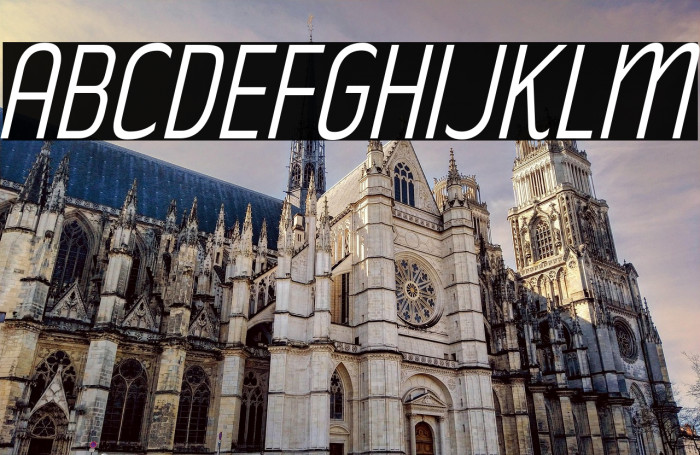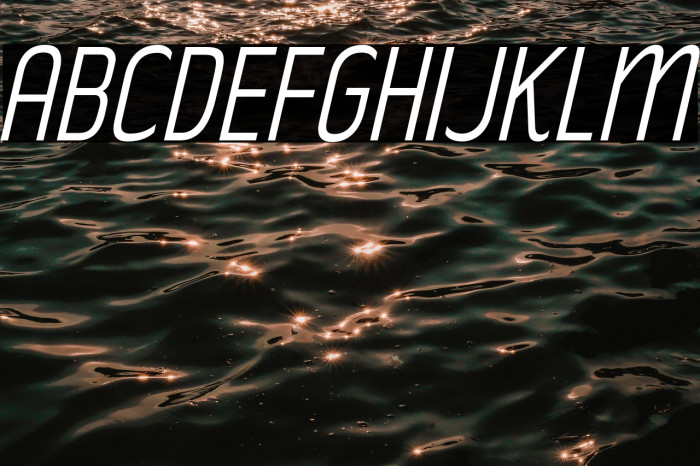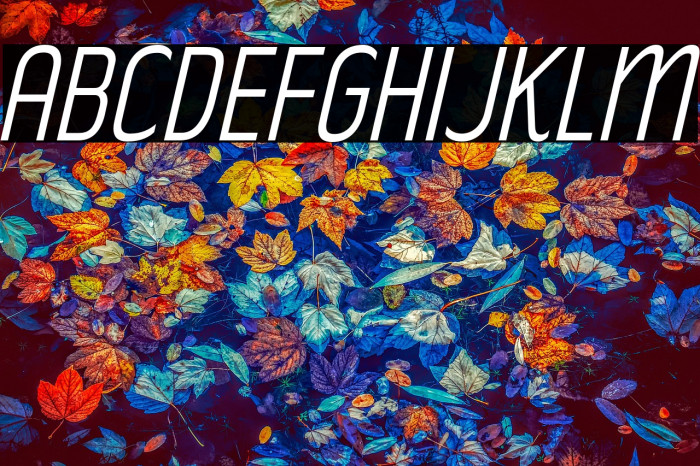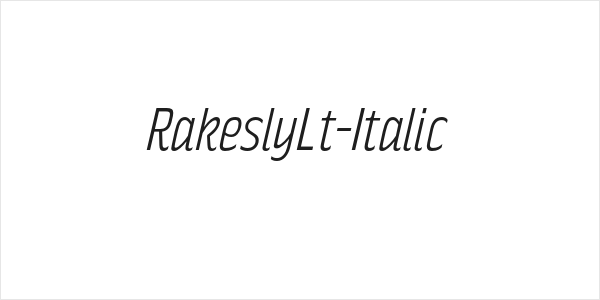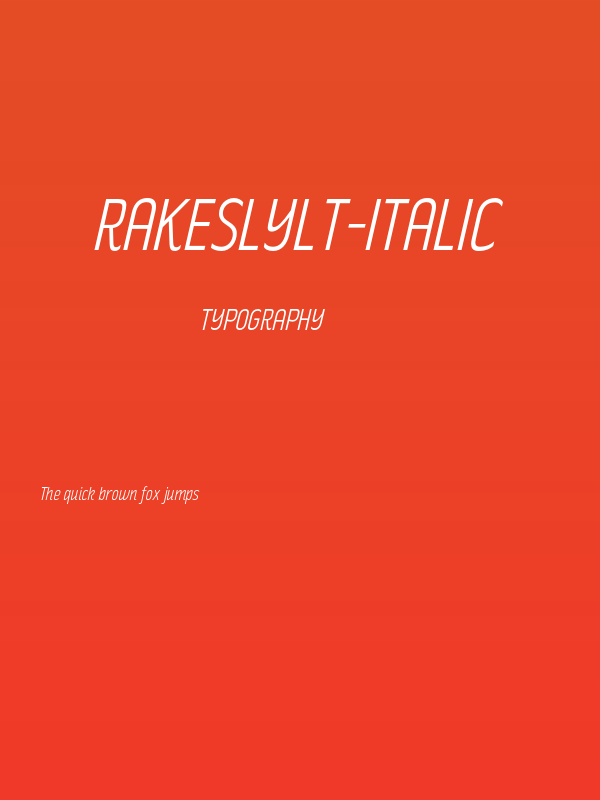
RakeslyLt-Italic Font
RakeslyLt-Italic Description
This font features a sleek and modern design with a slight italic slant, giving it a dynamic and forward-moving appearance. The characters are tall and narrow, contributing to a condensed look that maintains readability. The strokes are consistent in weight, offering a uniform appearance across all characters. The font includes a full set of uppercase and lowercase letters, numbers, and a variety of special characters, making it versatile for various applications. Its clean lines and contemporary style make it suitable for both digital and print media.
Proposed ProjectsIdeal for branding, advertising, and editorial design where a modern and sleek appearance is desired.